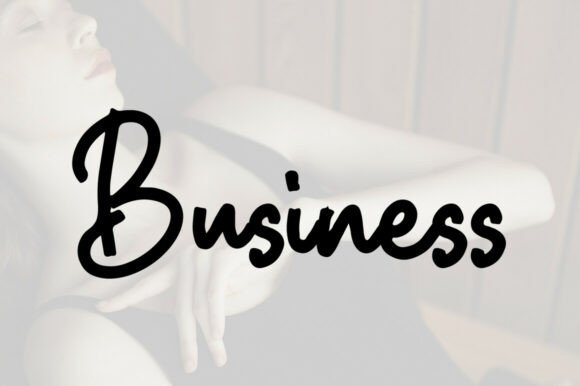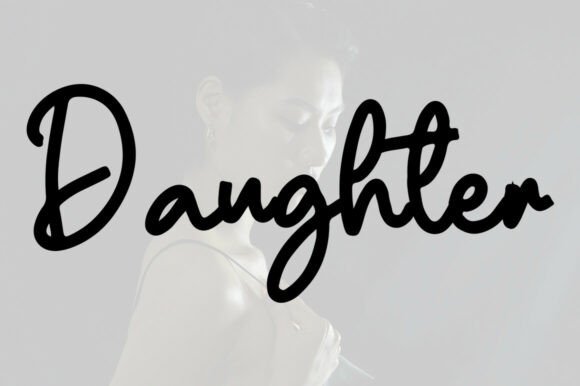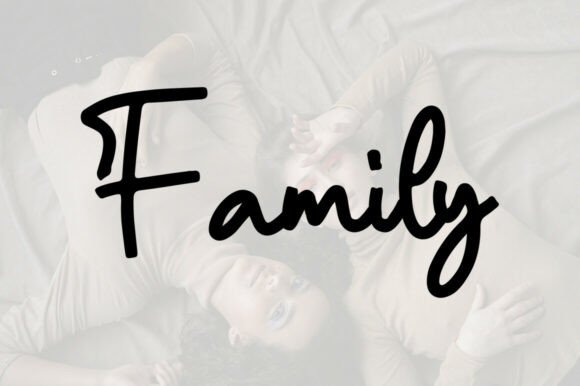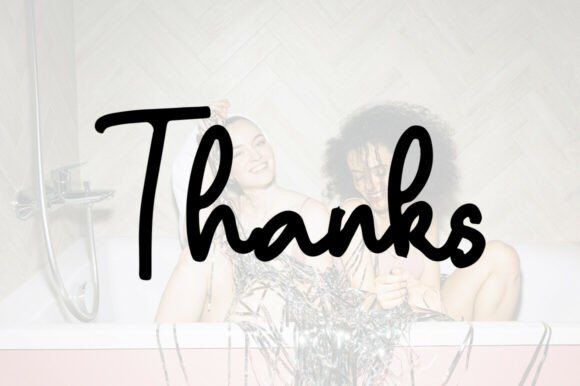
The Elegance of Florist Font: A Designer’s Delight
I’ll never forget the time I was working on a wedding invitation project, and my client asked for a font that exuded elegance and sophistication. I scoured the internet, tried out countless fonts, but nothing seemed quite right. That was until I stumbled upon Florist Font. It was love at first sight! 💕 The beautiful, flowing script and delicate strokes instantly captured the essence of what I was looking for. In this article, I’ll share my experience with Florist Font, its features, and how to make the most of it in your designs.
An Honest Review of Florist Font
- ✨ Elegant and stylish handwritten design
- ✅ Perfect for wedding invitations, thank you cards, and greeting cards
- 💫 Works beautifully for logos, business cards, and quotes
- 🎨 Highly versatile and can be used for a variety of design projects
While Florist Font is an amazing font, there are a few things to keep in mind:
- ⚠️ May not be suitable for body text due to its elegant, cursive nature
- 🤔 Some characters may require manual kerning for optimal spacing
- Experiment with OpenType features, such as ligatures and stylistic alternates, to add more flair to your design
The Story Behind Florist Font
Florist Font was designed by a talented type designer who wanted to create a font that captured the elegance and sophistication of handwritten calligraphy. Inspired by the beauty of flowers and the art of floristry, the designer carefully crafted each letter to exude a sense of refinement and luxury.
Q: What is Florist Font best used for?
A: Florist Font is perfect for wedding invitations, thank you cards, quotes, greeting cards, logos, business cards, and any other design that requires an elegant, handwritten touch.
Q: Is Florist Font easy to read?
A: Florist Font is a elegant script font, and while it’s beautiful, it may not be the most readable font for body text. It’s best used for headings, titles, and short paragraphs.